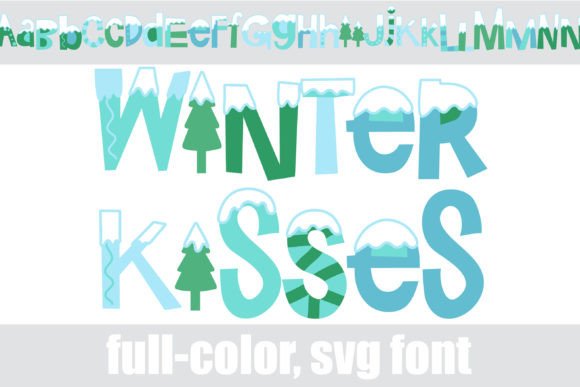
Winter Kisses: A Whimsical Holiday Display Font
When the first snowfall arrives, there's a specific kind of magic in the air. It’s crisp, playful, and undeniably festive. Capturing that feeling in a design project requires more than just a standard sans serif font or a traditional serif font. It requires a typeface that carries the personality of the season itself. Enter Winter Kisses, a premium font designed to bring the joy of a snow-covered landscape directly to your typography. As a display font, it isn't meant for body text; it is the centerpiece of your visual hierarchy, designed to grab attention and set a whimsical tone instantly.
The Visual Charm of a Snow-Covered Typeface
At its core, Winter Kisses is a full-color font, specifically an OpenType SVG format. This means it moves beyond the limitations of flat, monochromatic text. The characters appear as if they are coated in fresh white snow, with green trees serving as the letter "I". This 3D-like rendering offers a depth that standard vector outlines cannot achieve on their own. For designers looking for a creative font that feels tactile and festive, this typeface bridges the gap between typography and illustration.
Practical Applications for Winter Kisses
Understanding where a display font fits best is crucial for maintaining a professional brand identity. Because of its intricate details and playful nature, Winter Kisses shines brightest in short bursts of text. It is an ideal choice for seasonal logo design, particularly for holiday pop-up shops, winter festivals, or bakery branding during December. In packaging design, it works beautifully on gift tags, wrapping paper, and product headers for seasonal goods. The whimsical style adds a layer of warmth and approachability that can make a product feel more inviting.
For web design and social media graphics, this creative font is perfect for hero images, sale banners, and Instagram stories. It creates an immediate visual hook that stops the scroll. However, readability should always be your guiding principle. While Winter Kisses is legible at poster sizes, using it for small navigation links or lengthy descriptions would compromise the user experience. Instead, pair it with a clean, legible modern typography choice for the body text—perhaps a geometric sans serif font to contrast the organic, snowy textures of the header.
Strategic Font Pairing and Hierarchy
Creating a cohesive design often involves font pairing. The goal is to create contrast without conflict. Since Winter Kisses is high-detail and high-impact, it pairs best with simple, understated typefaces. Avoid pairing it with a busy script font or a highly decorative handwritten font, as this will create visual clutter and make the design feel chaotic. A strong serif font can also work well if you are aiming for a "classic holiday" aesthetic, such as a vintage Christmas card or an editorial design for a winter magazine spread.
When working with the font, you may notice that it appears black in the preview window of some compatible software. This is a quirk of how many applications render the font selection menu. You must apply the font to the canvas to see the colors. Additionally, Winter Kisses often comes with alternative glyph sets or "alt cases." These allow you to access different color variations or stylistic alternates, giving you more flexibility to customize the look to match your specific design assets and color palette.
Ultimately, Winter Kisses is more than just a seasonal novelty; it is a robust tool for storytelling. It allows content creators, crafters, and designers to evoke a specific emotion—joy, nostalgia, and winter wonder—through the power of type. By using it strategically, respecting its technical requirements, and pairing it wisely, you can elevate your winter projects from standard to spectacular.